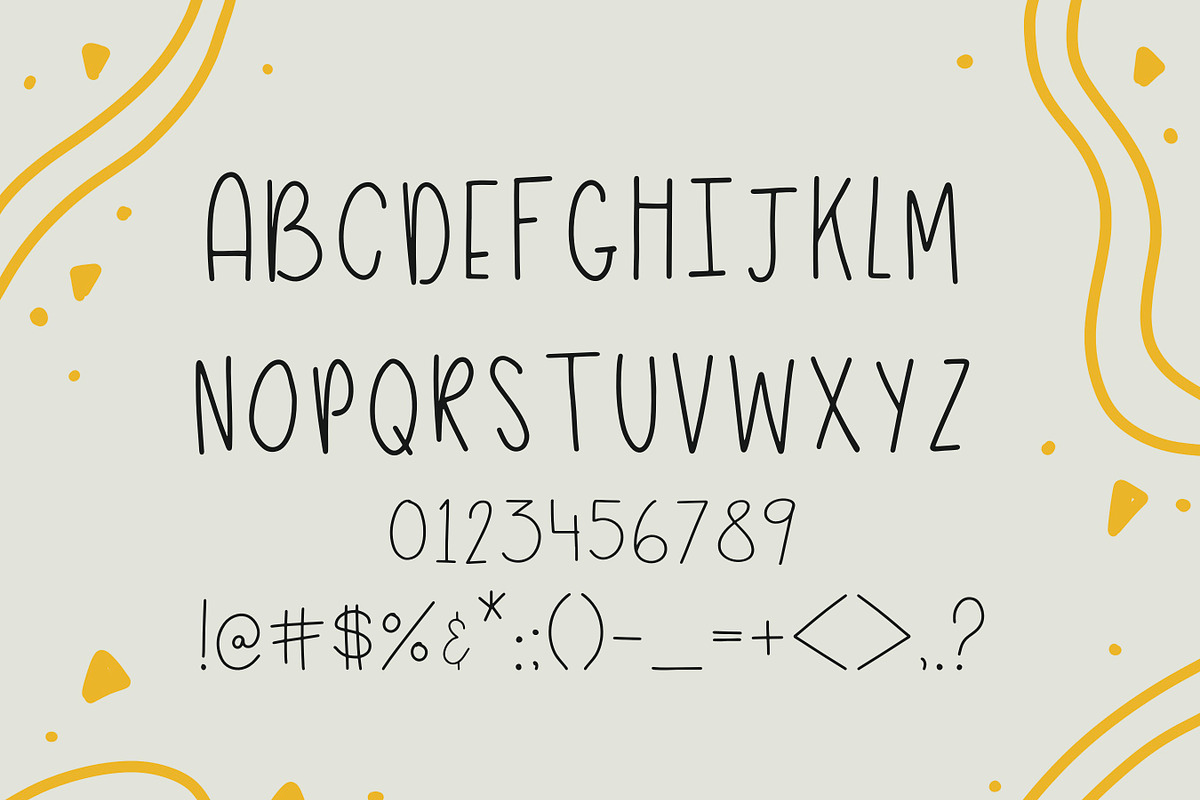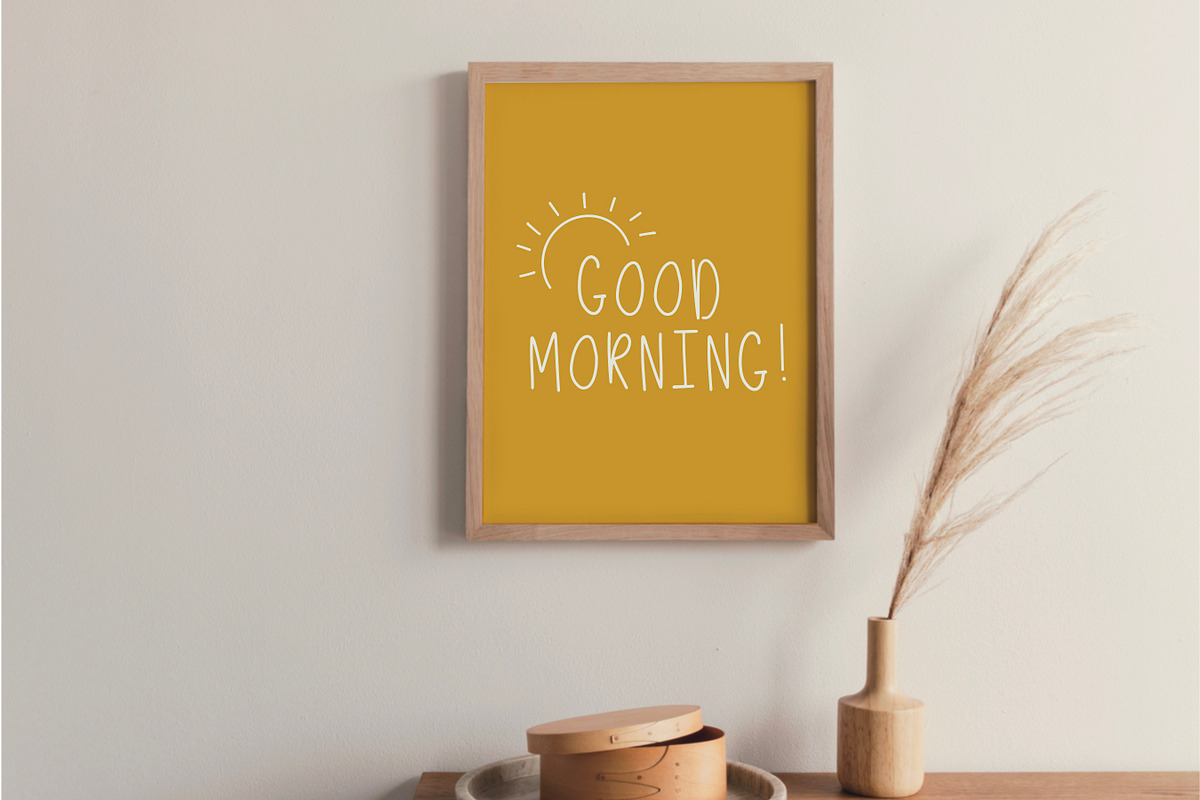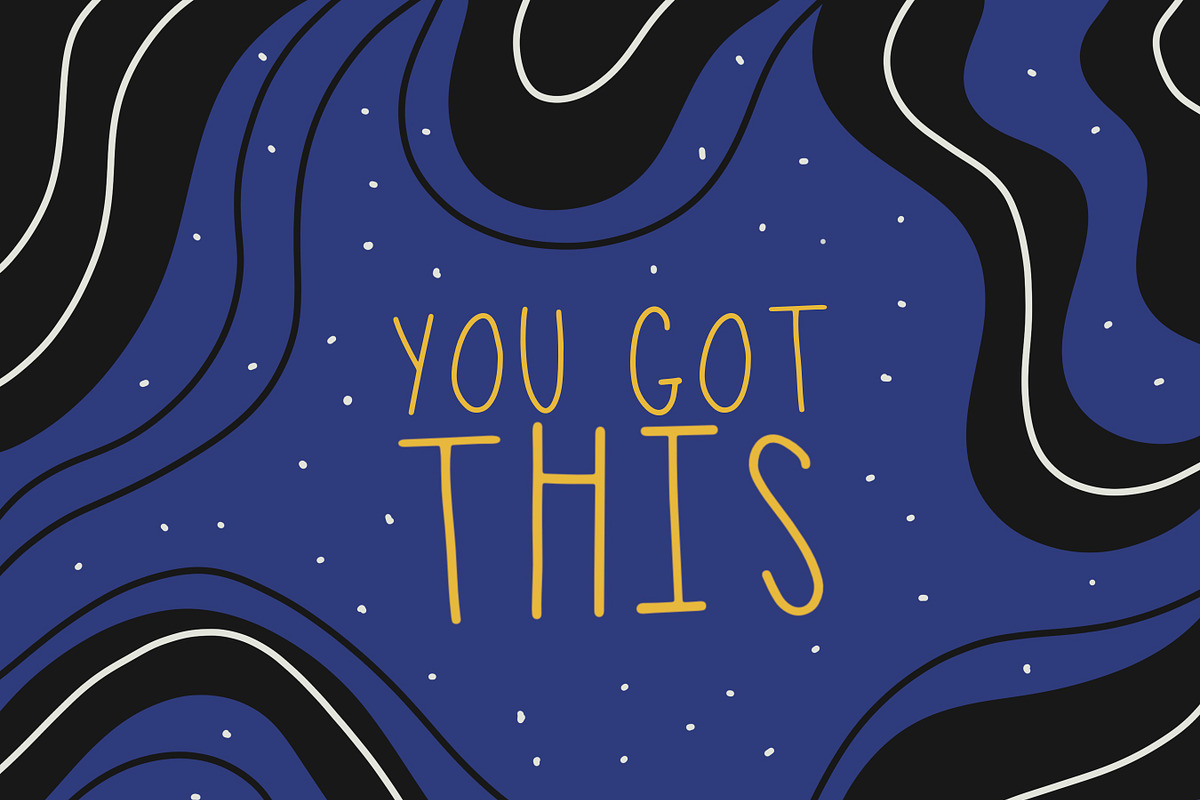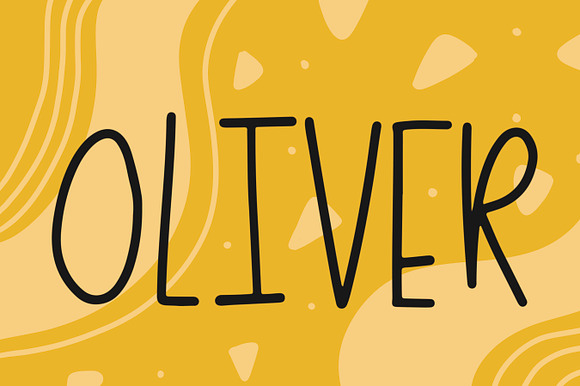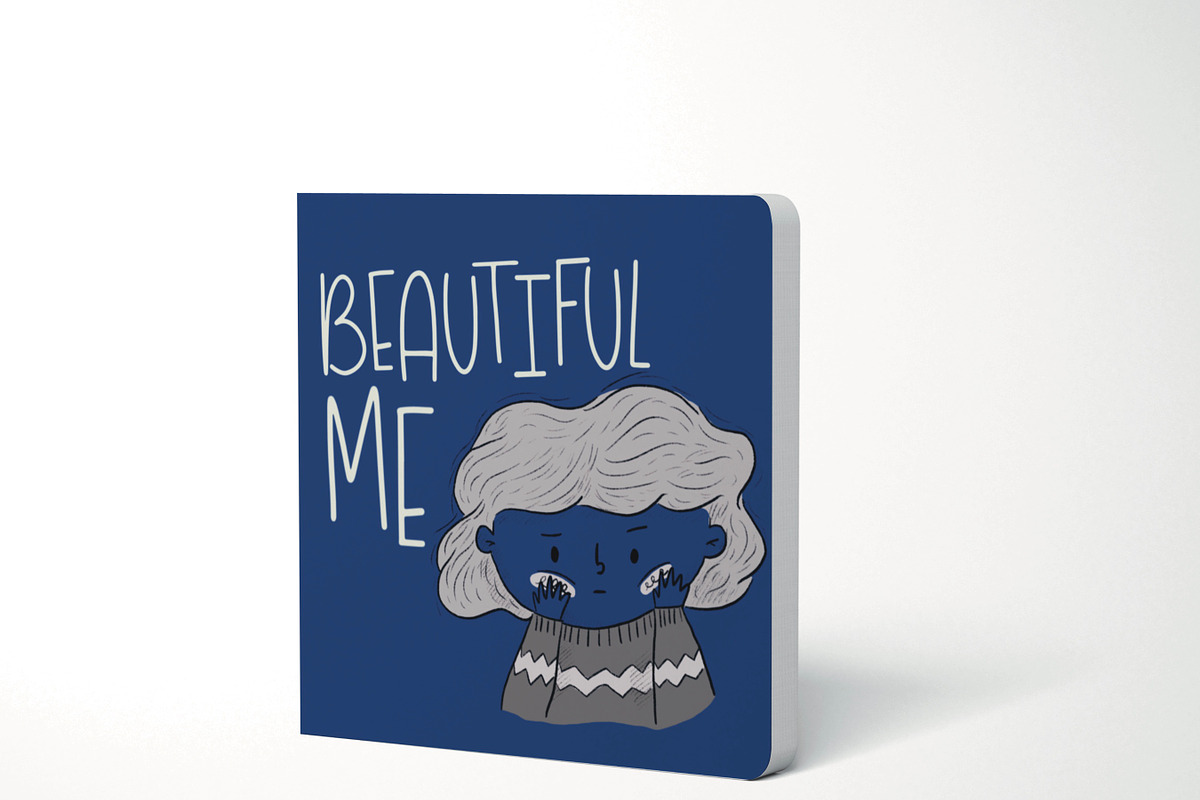
Oliver - Skinny All Caps Font
Oliver is a simple, skinny, all-caps hand written sans serif font. Oliver is perfect for typography layouts, invitations, mugs, logos, and more! It's also available as a web font, allowing you freedom to use as you please!
Uppercase Letters, one weight only
Punctuation & Numbers